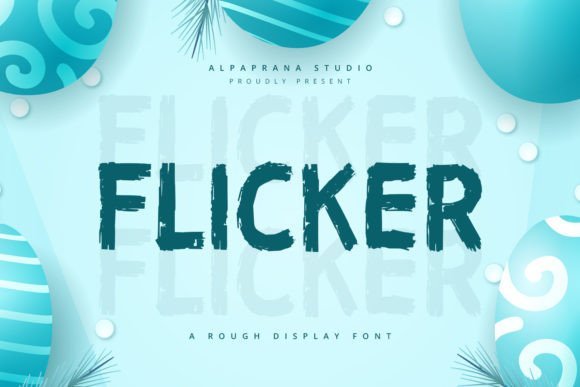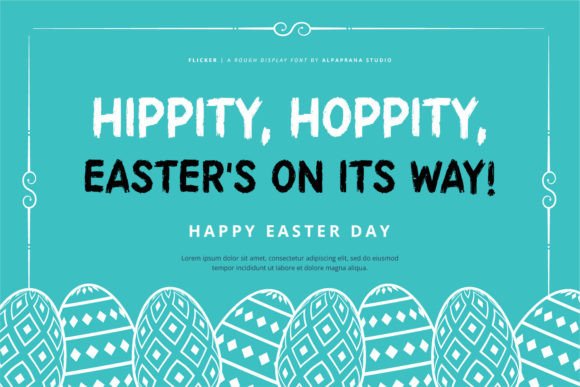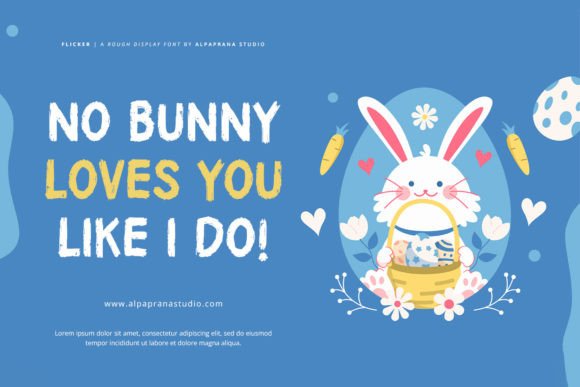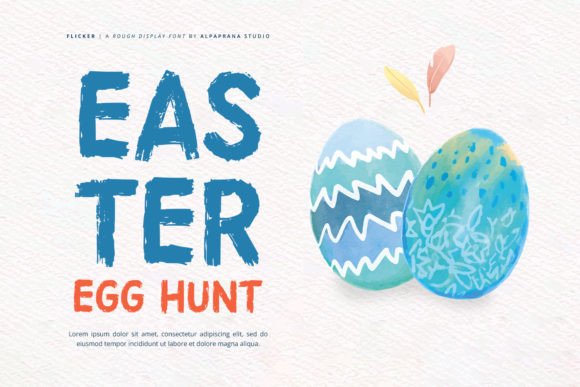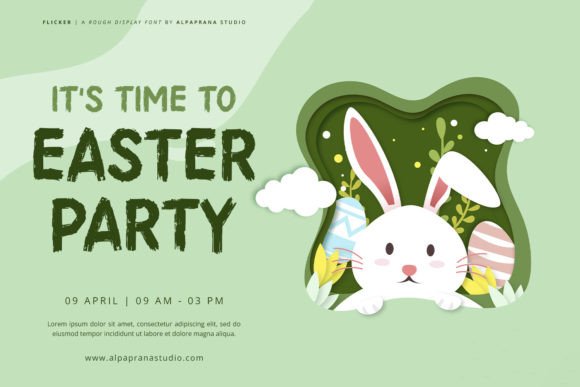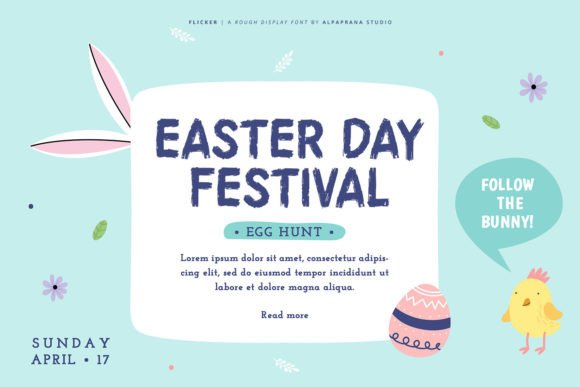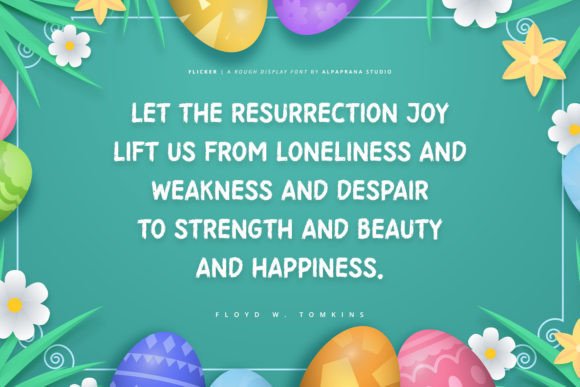
The Perfect Blend of Raw and Refined: Introducing Flicker Font
Have you ever found yourself staring at a blank canvas, struggling to bring your creative vision to life? You know the feeling – the one where every font, every color, and every design element seems to fall flat. But then, like a spark of inspiration, it hits you. You stumble upon the perfect combination of style and substance, and suddenly, your design begins to take shape. For many of us, that moment of clarity comes with the discovery of Flicker Font – a rugged display font that embodies the perfect blend of raw, natural beauty and contemporary flair.
Flicker Font is more than just a font – it’s a design game-changer. Its bold strokes, imperfect lines, and organic feel add a touch of personality to any project, while its modern vibe keeps it fresh and on-trend. Whether you’re a seasoned designer or a creative newbie, Flicker Font is the perfect tool to help you bring your unique vision to life.
- Unique Characteristics: Flicker Font features a unique, distressed, and vintage aesthetic, making it perfect for designs that require a nostalgic or retro feel.
- Style Options: The font comes in multiple styles, including Regular, Bold, Italic, and Bold Italic, allowing users to choose the perfect style to match their design needs.
- Legibility: Despite its distressed appearance, the Flicker Font is designed to be highly legible, making it suitable for body text, headlines, and other types of content.
Flicker Font Review
As a designer, I’ve had the chance to play around with Flicker Font, and here’s my honest take on it.
- Flicker Font has a unique, eye-catching aesthetic that can add a touch of elegance to your designs.
- The font’s subtle flicker effect gives it a dynamic feel that can be perfect for projects that require a sense of movement or energy.
- It’s highly versatile and can be used for a wide range of applications, from branding and marketing materials to digital products and websites.
- Flicker Font can be overwhelming if used excessively, so it’s essential to use it judiciously and balance it with other design elements.
- The font may not be suitable for projects that require a professional, formal tone, as its playful nature may clash with the desired atmosphere.
Flicker Font is a great addition to any designer’s toolkit, offering a fresh and exciting way to add visual interest to your designs. While it may have its limitations, its unique aesthetic and versatility make it a valuable resource for designers looking to create engaging and dynamic content.
Tips for Getting the Most Out of Flicker Font
Use Flicker Font for creative and attention-grabbing titles and headings.
Experiment with different font sizes, colors, and styles to create a unique look.
Combine Flicker Font with other creative elements, such as graphics and images, to create a visually appealing design.
Use Flicker Font for:
Titles and headings in creative projects.
Advertising and marketing materials.